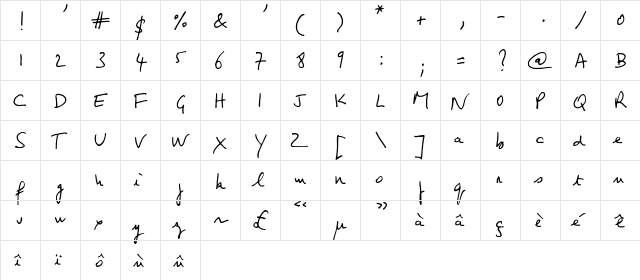
Design Context for Jean-Claude's hand Typeface
Jean-Claude's hand flows with the natural rhythm of handwritten lettering, making it ideal for designs that call for warmth and personal expression.
Font Pairing: Combine Jean-Claude's hand with a simple geometric sans for maximum contrast — the tension between flowing curves and clean structure is a classic typographic pairing.
Pro Tip: Pair Jean-Claude's hand with a clean sans-serif for supporting text. The contrast between fluid script and geometric structure creates an elegant typographic hierarchy.